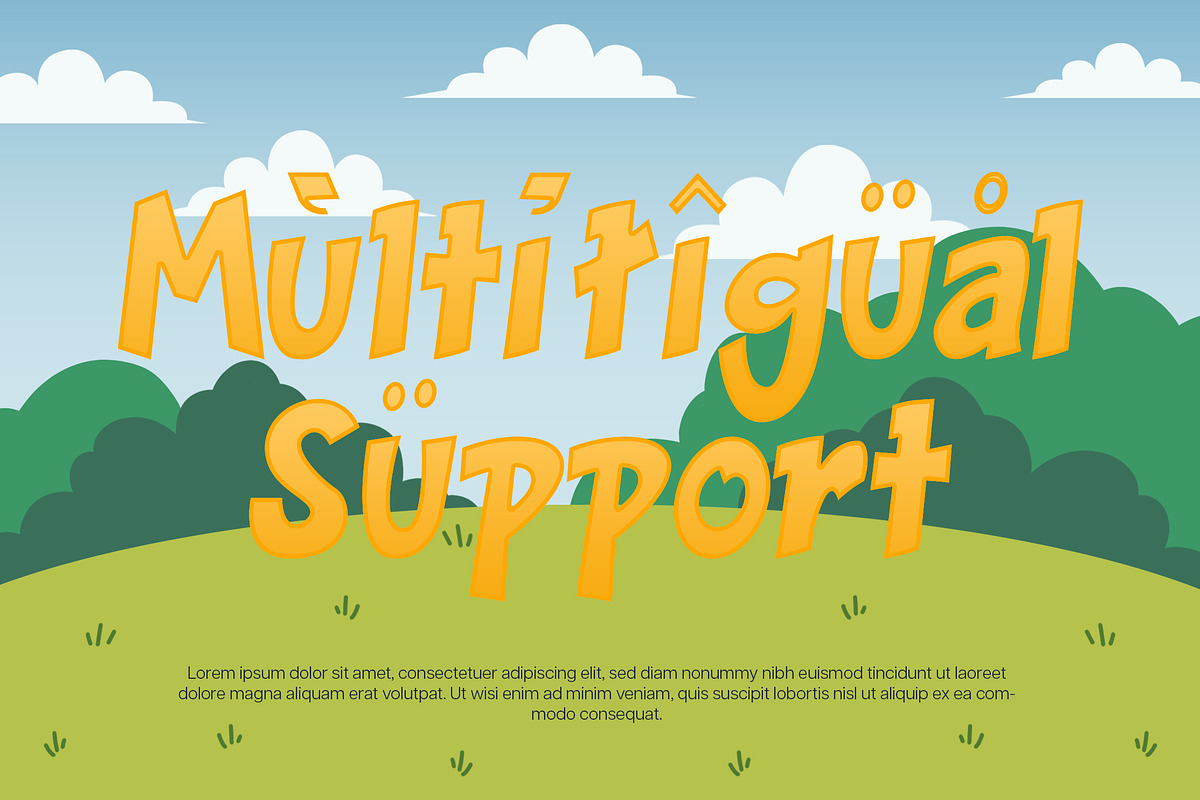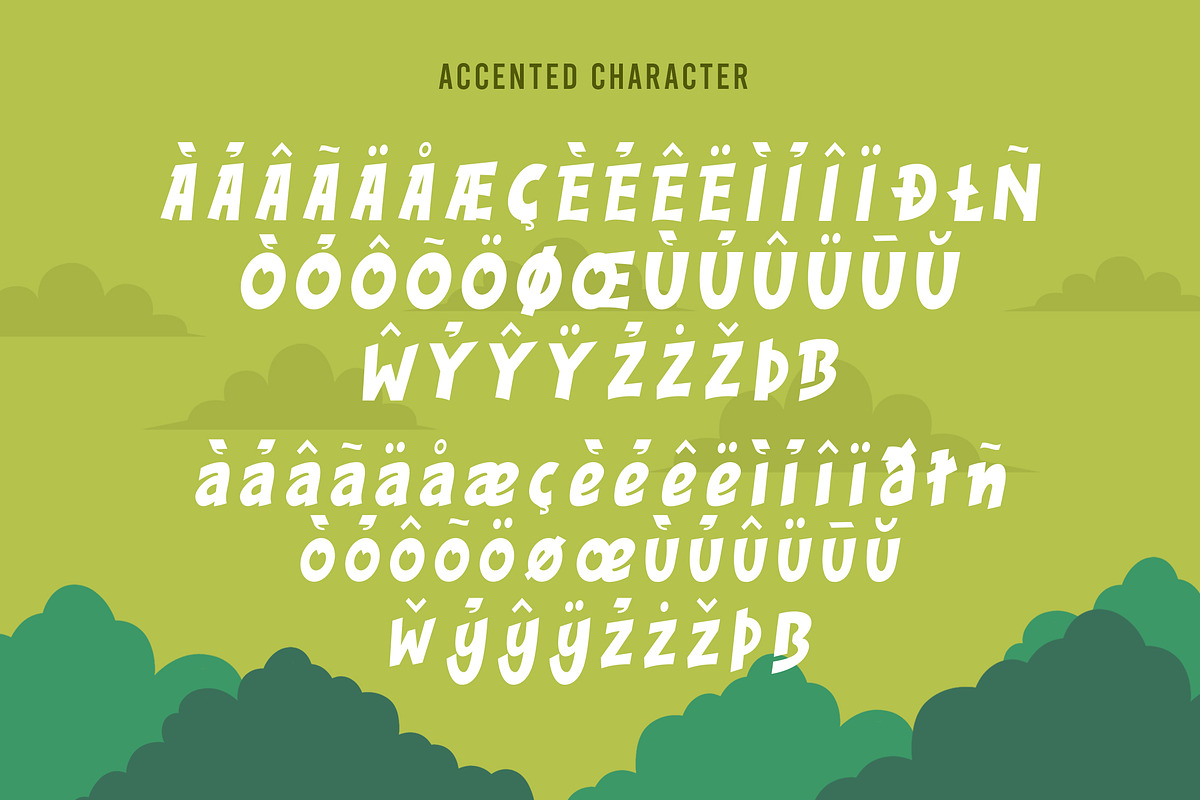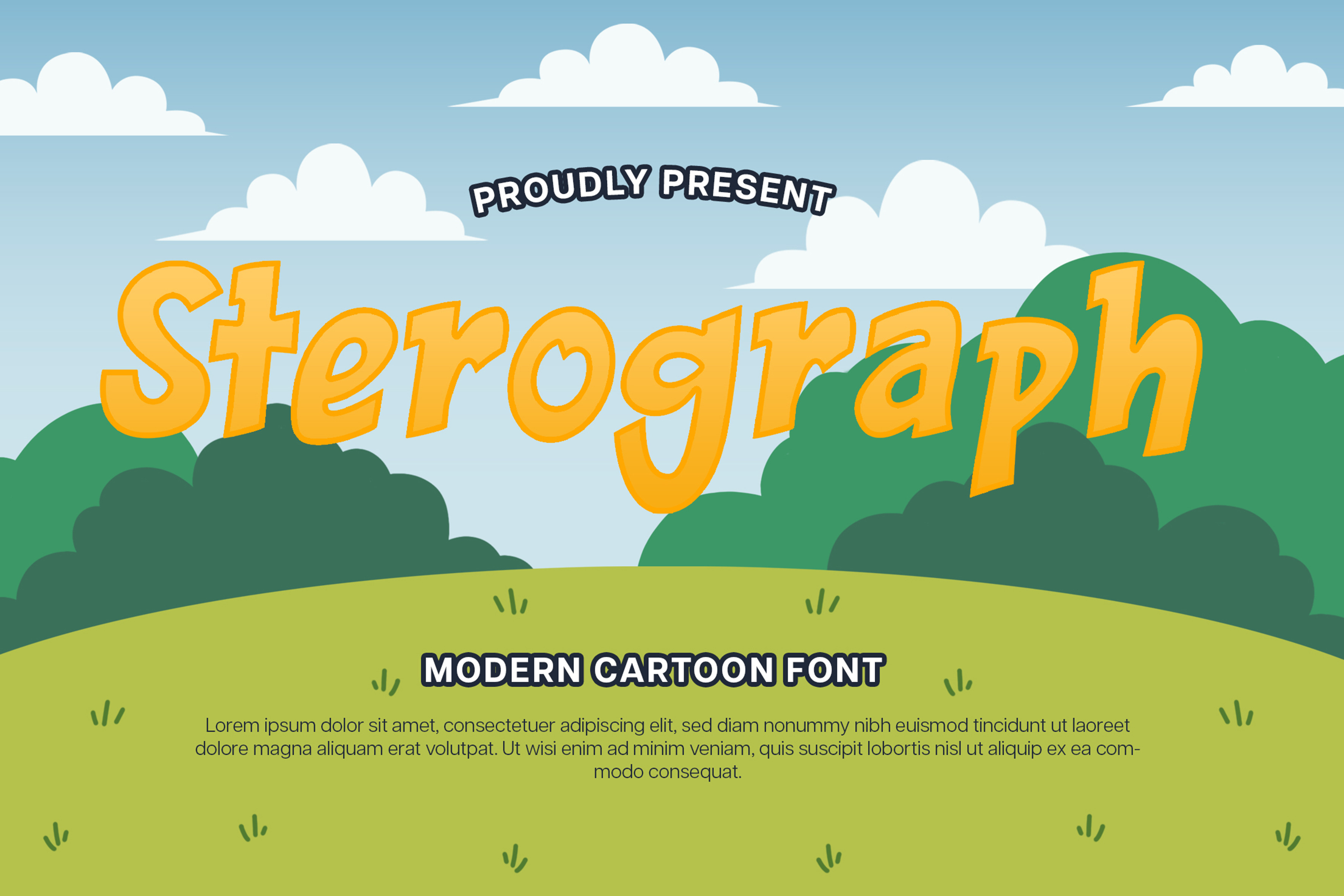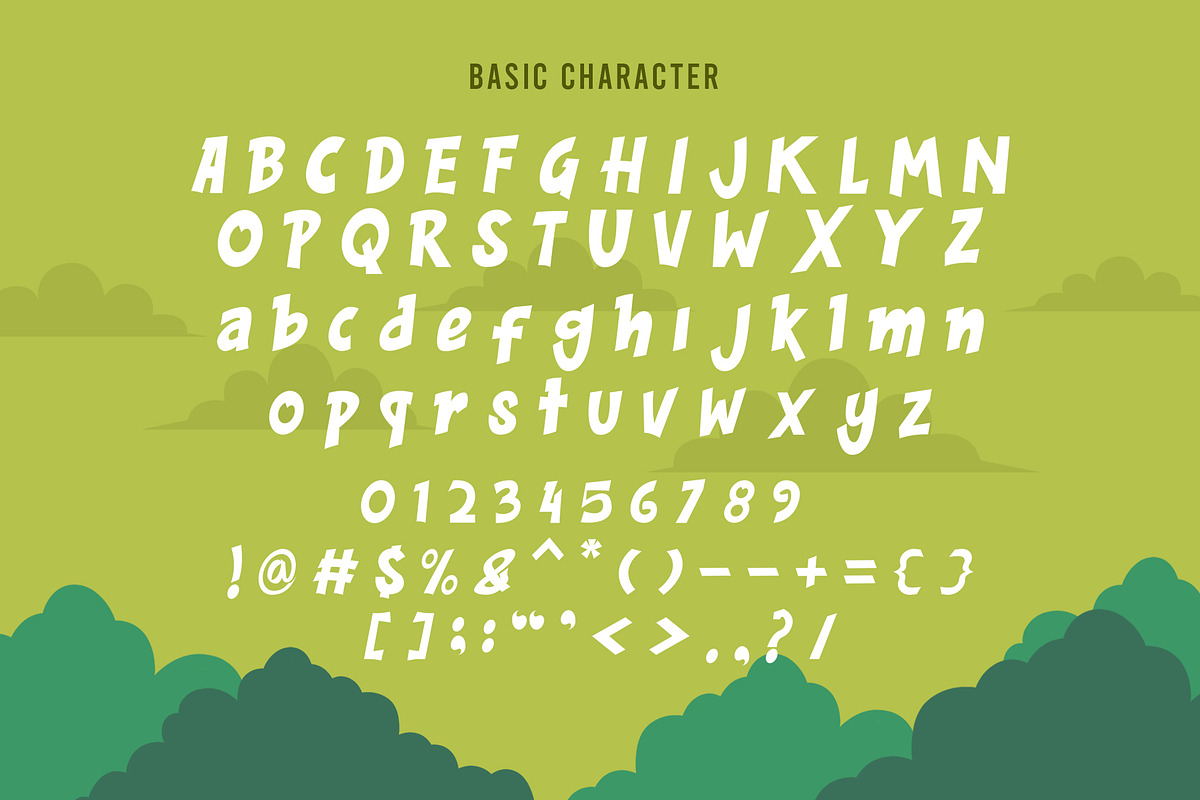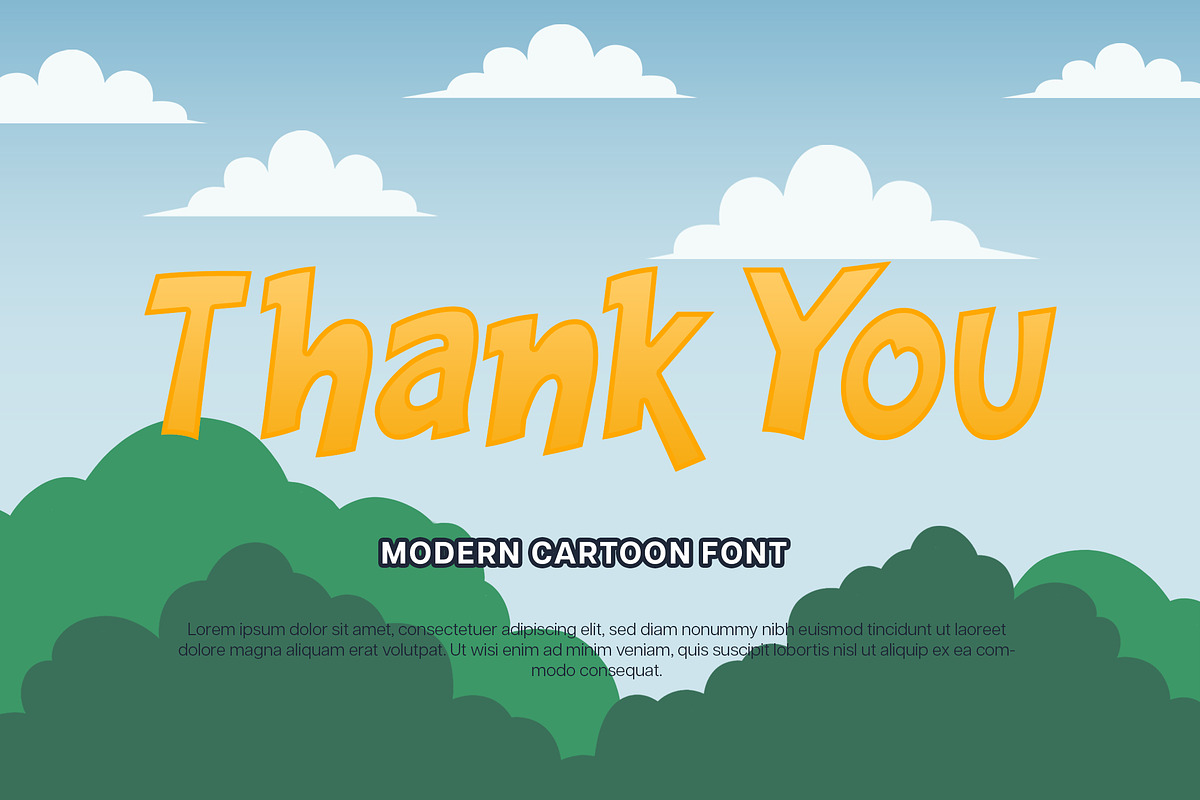
Sterograph Font
Sterograph is script font with good style and modern touch, these font includes:
Uppercase and Lowercase Characters, Numbers and Punctuation. Ligatures and Alternates. Multilingual Support (Eastern, Central and Western European countries). OTF and TTF file format. Works on PC or Mac and simply quick installation. Sterograph font is suitable to use for all purpose for your logo lettering, logo, label, packaging, sticker, branding and many more.